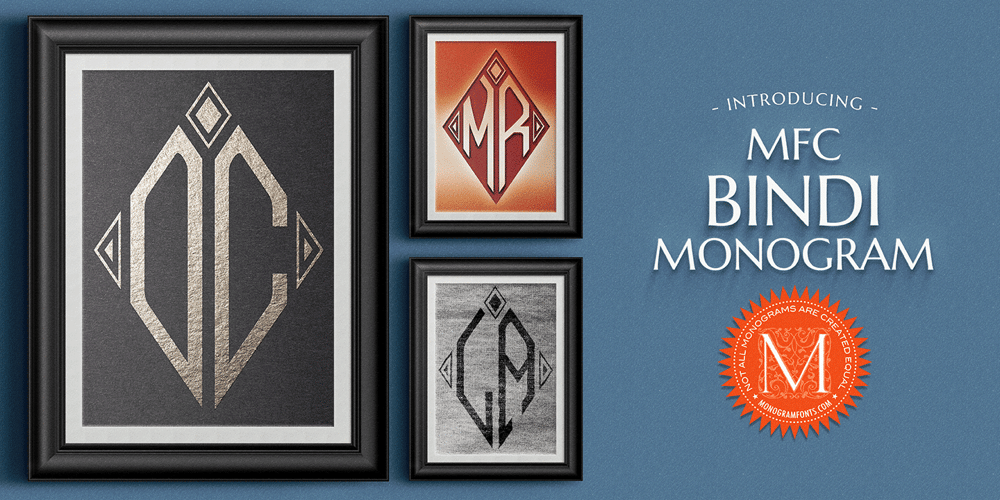
MFC Bindi Monogram Font Family was designed by Brian J. Bonislawsky and published by Monogram Fonts Co.. MFC Bindi Monogram contains 4 styles and family package options. The inspiration source for Bindi Monogram is a 1915 publication by Cartier-Bresson of Paris containing classic and modern monogram patterns for embroidery. This Art Deco style monogram has been redrawn, balanced, and brought forward into the digital age for your type-setting use and enjoyment. Like so many monograms from this period, it is only a two letter monogram format, but this particular monogram comes with an accent color block character to add pop! Download and view the MFC Bindi Monogram Guidebook if you would like to learn a little more.